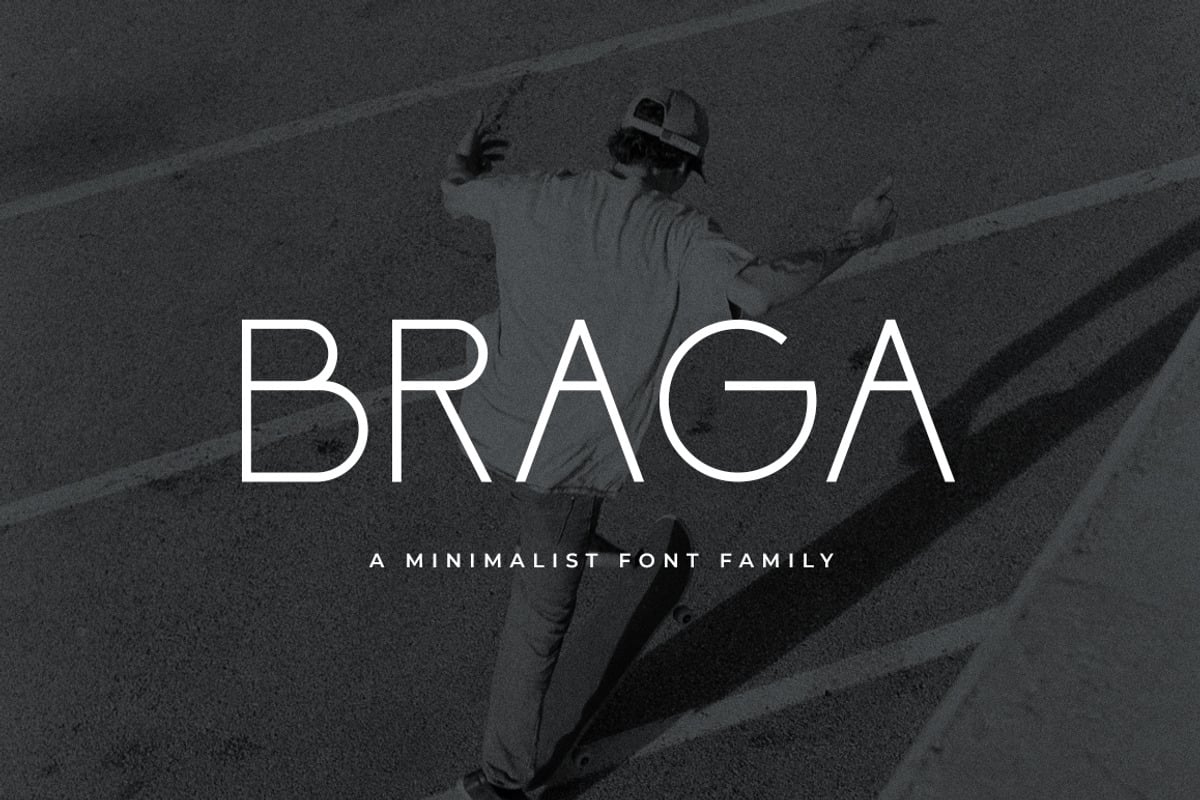
Braga - Modern Sans Serif Font
Braga is the sleek, minimalist sans serif typeface built for modern brands and beautiful design work.
With its refined, elegant character, Braga brings a sophisticated edge to everything from wedding invitations to bold editorial headlines. Its clean geometry and ravishing style make it a versatile go-to for designers across a wide range of creative projects.
- 3 weights (Thin, Regular, and Bold) with italic versions
- All caps, numerals, and extended punctuation
- Stunning ligatures